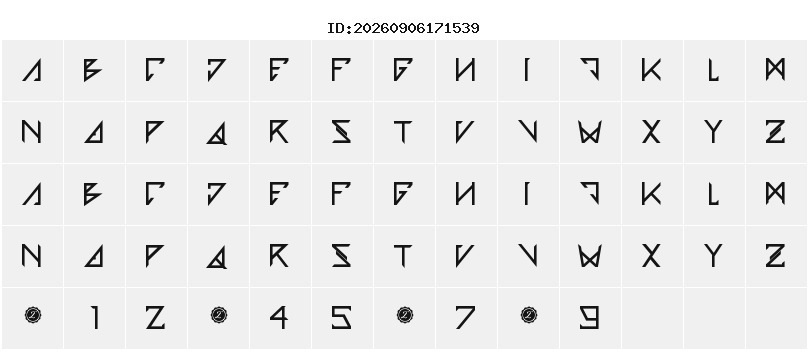
• Font Name: TRG - Zilap
• Designer: Juan Guillermo Navarro Barrios ( Juancho Navarro)
• Description: This typeface is owned by Zilap Studios, joined by LJ-Design Studios assembled: LJ-designe.blogspot.com LJ-Design Studios www.fontspace.com/LJ-Design-studios ---- Español: Esta fuente tipográfica es propiedad de Zilap Studios, ensamblada por LJ-Design Studios ensamblada en: LJ-designe.blogspot.com LJ-Design Studios www.fontspace.com/LJ-Design-studios
TRG - Zilap.ttf is a modern, elegant sans-serif font designed for ultimate readability and visual harmony. Perfect for branding, headlines, web design, and print materials.